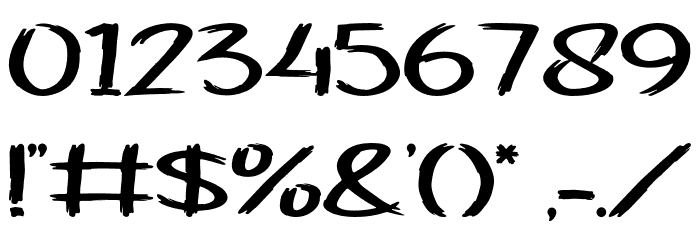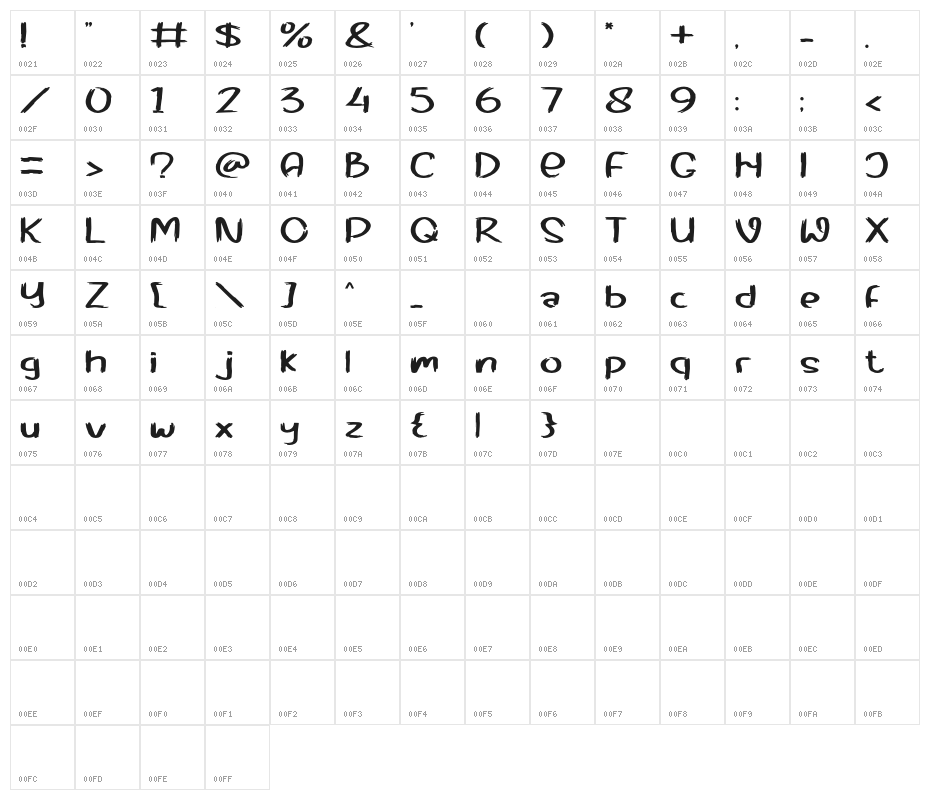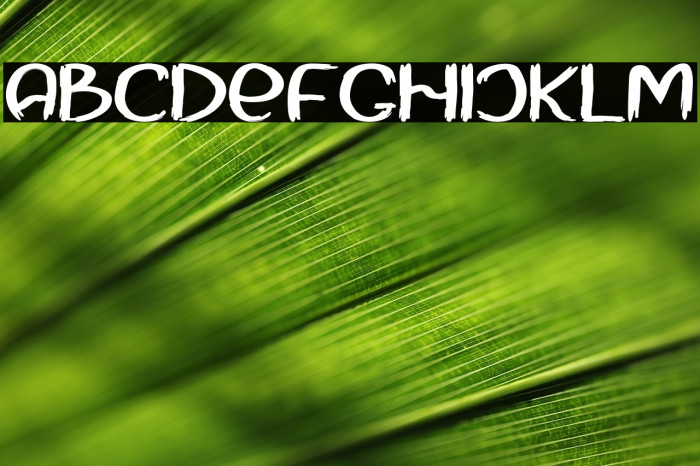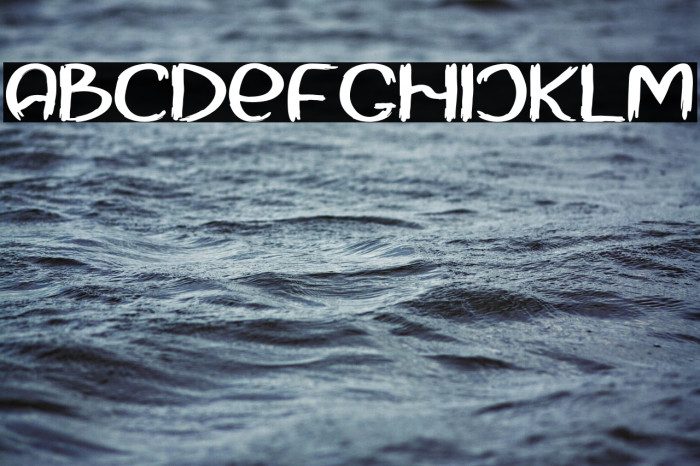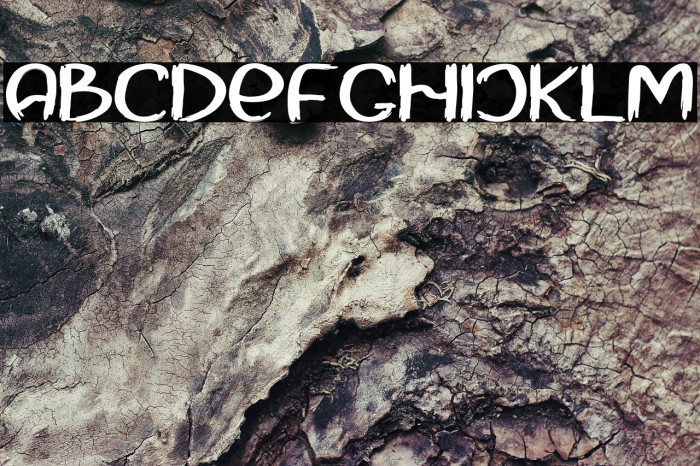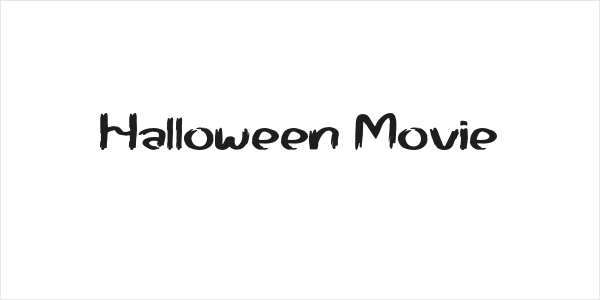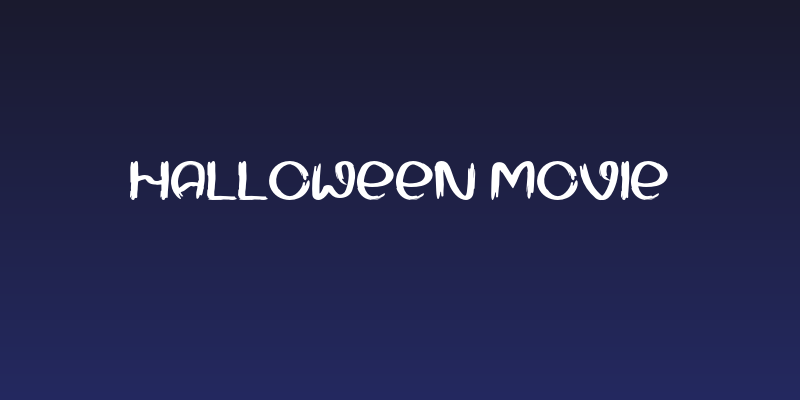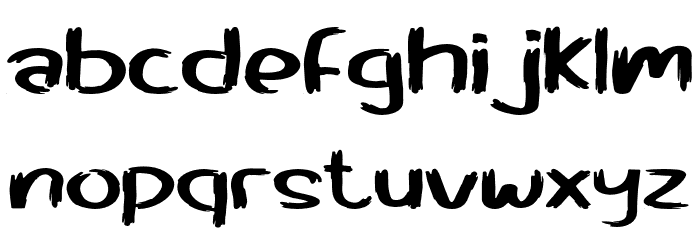
Halloween Movie Font
Halloween Movie Description
This font features a bold, brushstroke style that exudes a sense of energy and spontaneity. The characters are crafted with uneven, dynamic strokes that give a hand-painted appearance, making it perfect for designs that require a touch of artistic flair. The uppercase and lowercase letters maintain a consistent style, with slightly exaggerated curves and angles that enhance its expressive nature. Numbers and special characters are equally bold, ensuring a cohesive look across all text elements. This font is ideal for projects that aim to capture attention and convey a lively, creative vibe.
| Proposed Projects | Ideal for Halloween-themed designs, posters, event invitations, and artistic branding. |